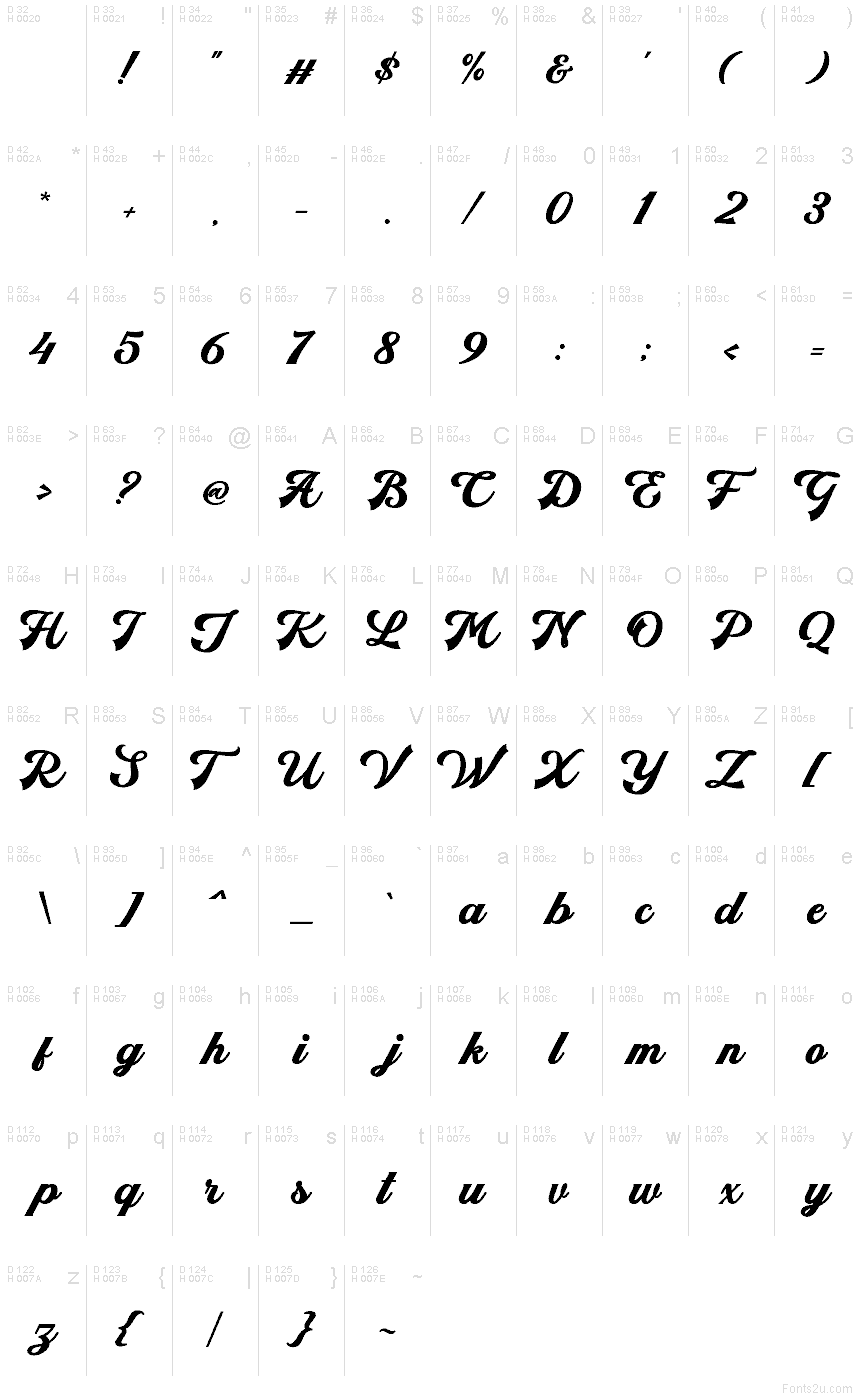
Brobane
Brobane font is a bold brush script font designed by Letterniz. Even though it embodies a strong character, this free handwritten font still manages to express elegance and beauty. This clearly comes from its flowing gentle letters which add a casual sophistication and signature look to texts. Those who love vintage vibes yet need some modernity will exceptionally enjoy using this font.
Elegant brands, packaging design, product labels, and many other commercial projects would benefit from Brobane. It would make logos for cafes and bars stand out while decorating menus for different types of restaurants. Consider using Brobane in blogs and websites or even as text in posters and flyers advertising various events like social gatherings or even weddings.